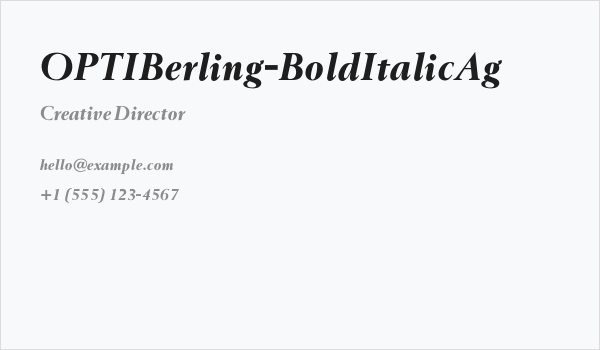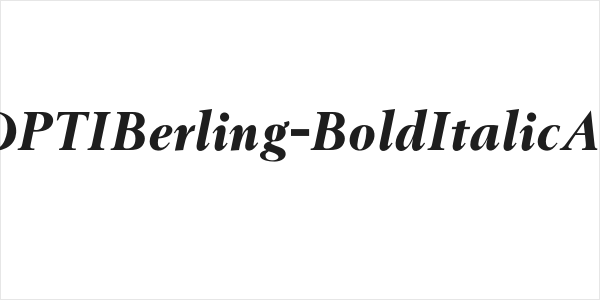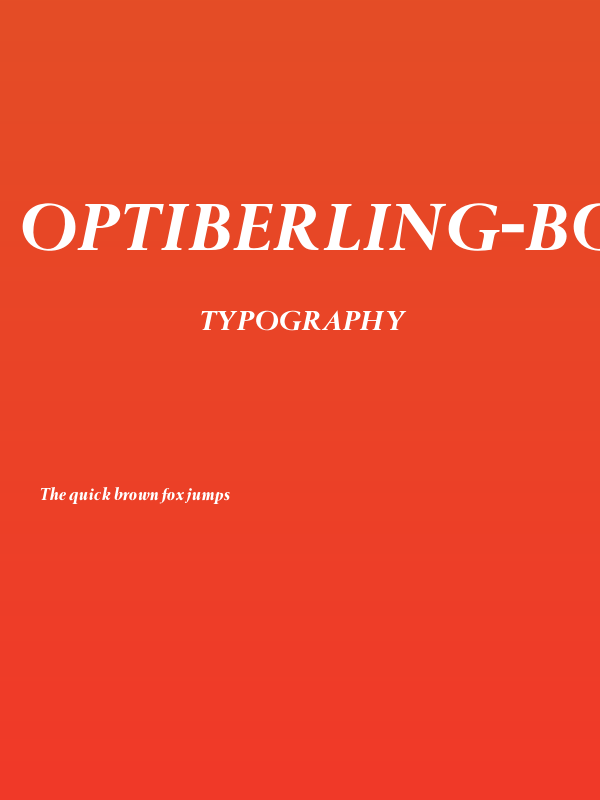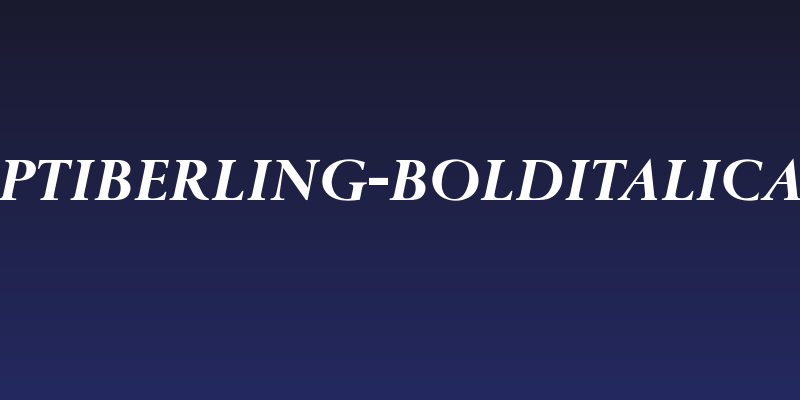
OPTIBerling-BoldItalicAg Font
OPTIBerling-BoldItalicAg Description
This font features a sophisticated and elegant design with a classic serif style. The letters are bold and italicized, giving them a dynamic and flowing appearance. The uppercase characters are slightly taller than the lowercase, maintaining a traditional serif structure. The numerals are clear and distinct, with a consistent weight throughout. Special characters are well-defined, adding versatility to the font. The overall design is balanced, with moderate contrast in stroke thickness, making it suitable for a variety of formal and professional applications.
Overall StyleClassic
Proposed ProjectsIdeal for book covers, formal invitations, branding materials, and editorial design.